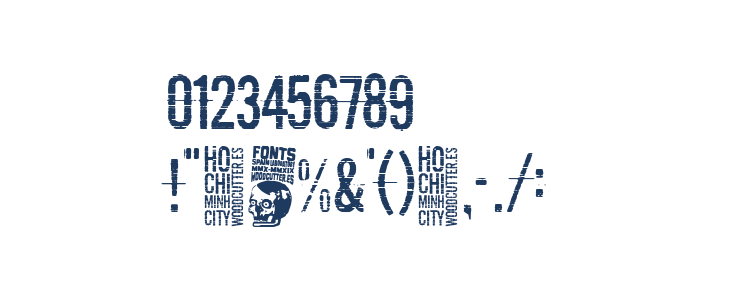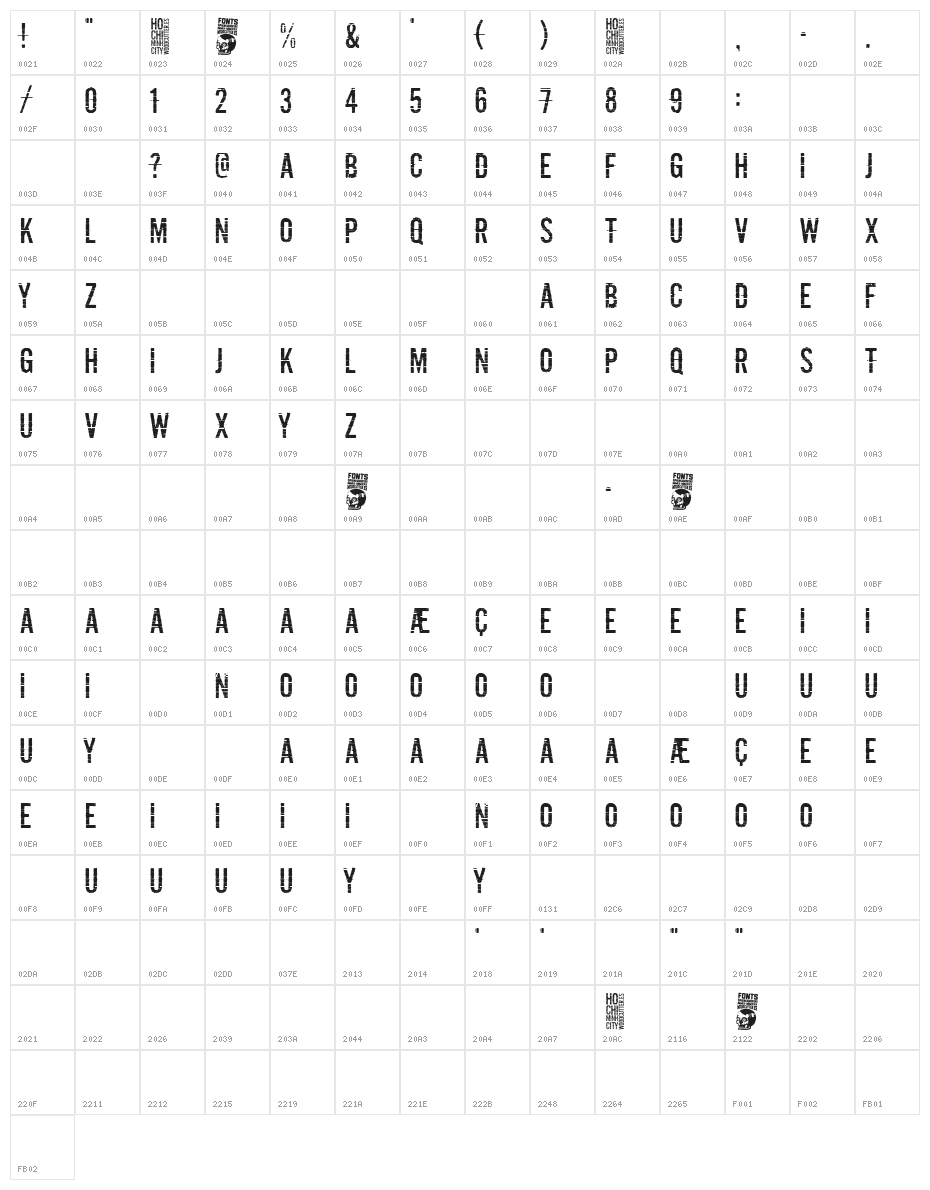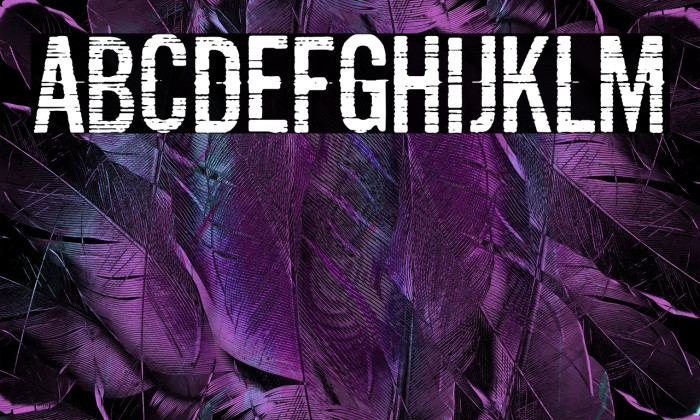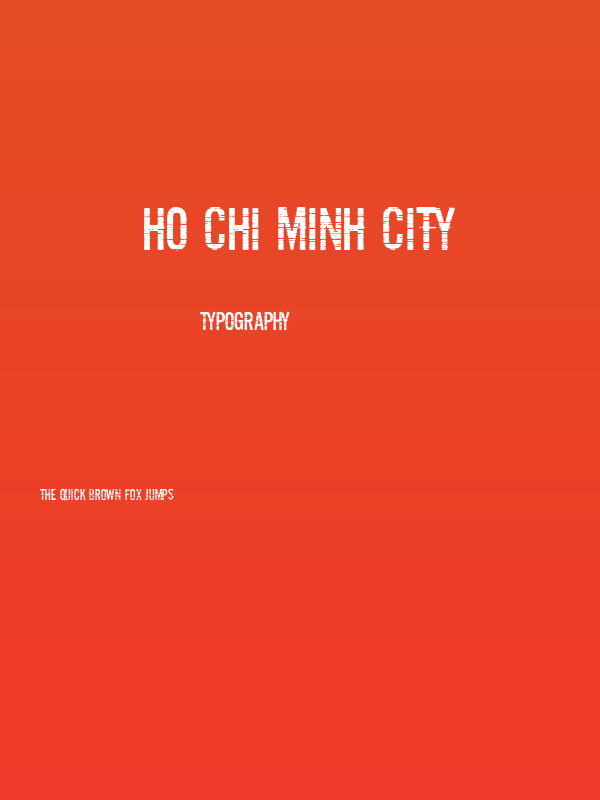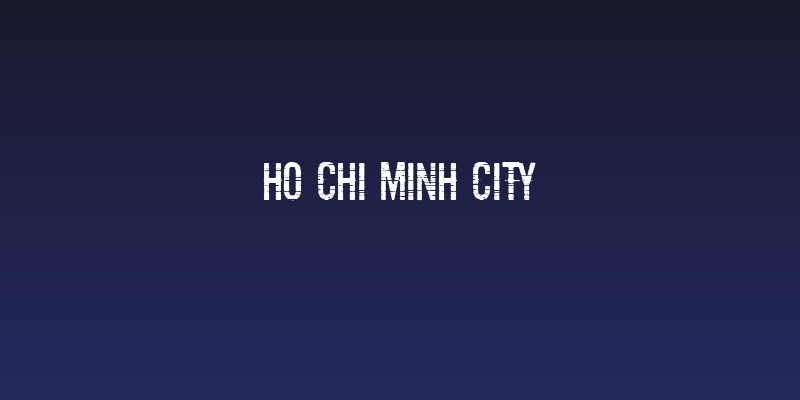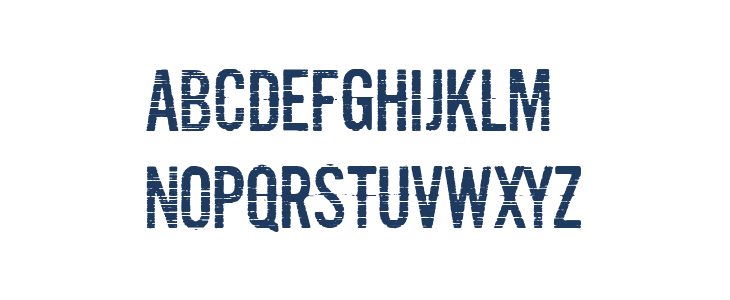
Ho Chi Minh City Font
Ho Chi Minh City Description
This font features a distressed, grunge style with a bold, impactful presence. The characters are uppercase and numerals, each exhibiting a worn, textured appearance that suggests a vintage or industrial aesthetic. The letters are evenly spaced, maintaining a consistent alignment despite the rough texture. The overall design is reminiscent of old signage or typewriter text, offering a rugged charm that stands out in any design. The font's unique style makes it suitable for projects that require a strong, eye-catching headline or title.
| Proposed Projects | Ideal for posters, album covers, branding for edgy or retro-themed products, and any design needing a bold, textured headline. |